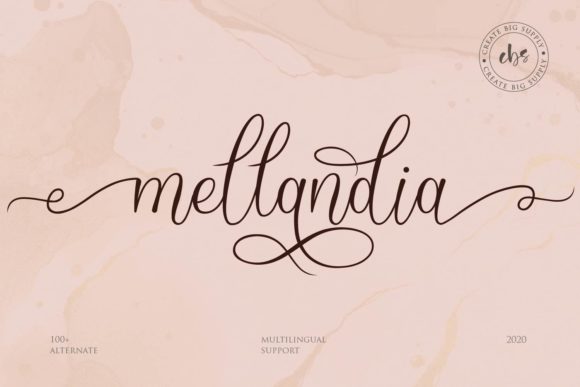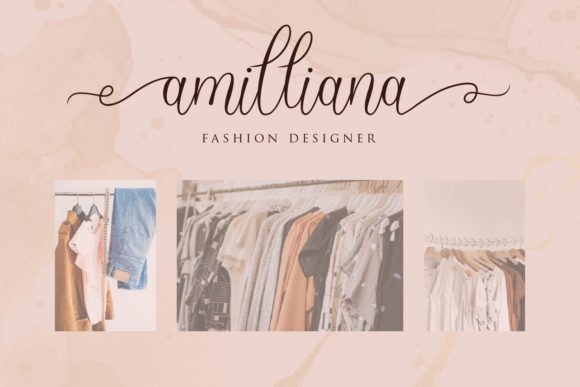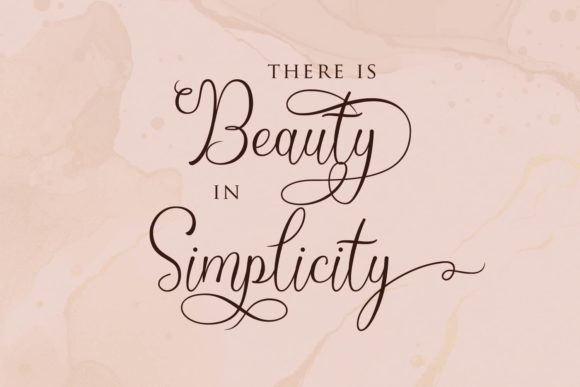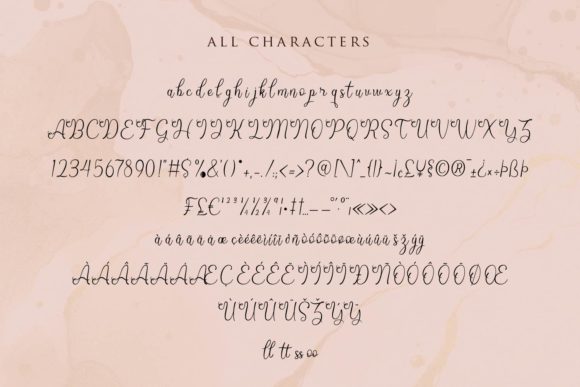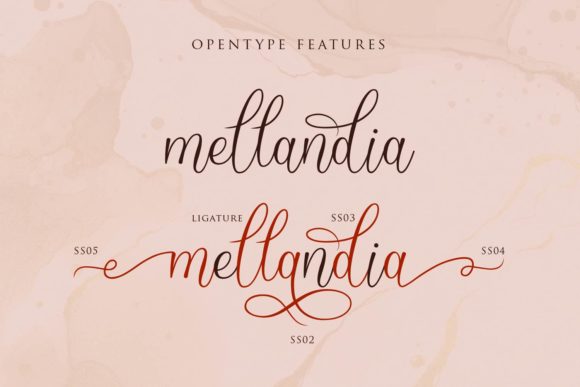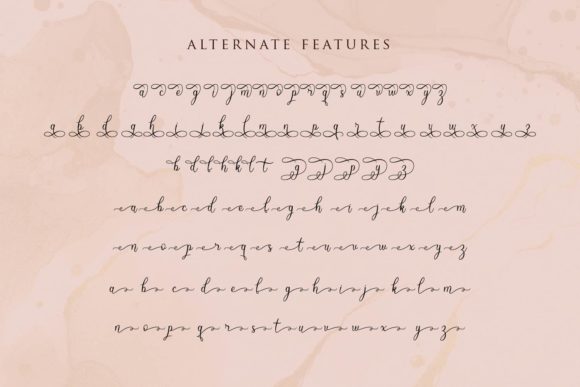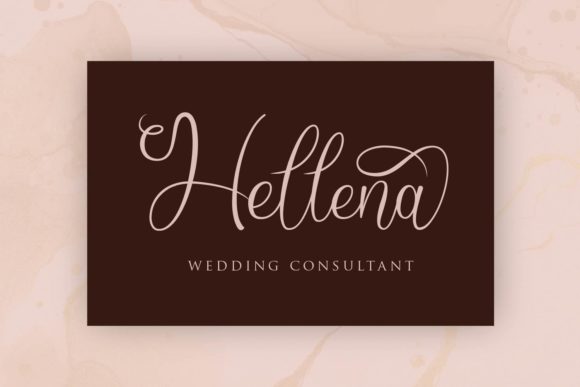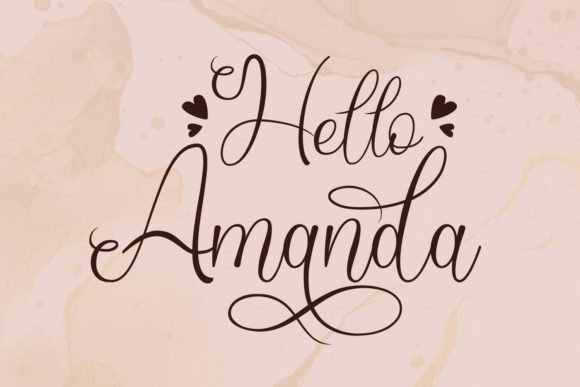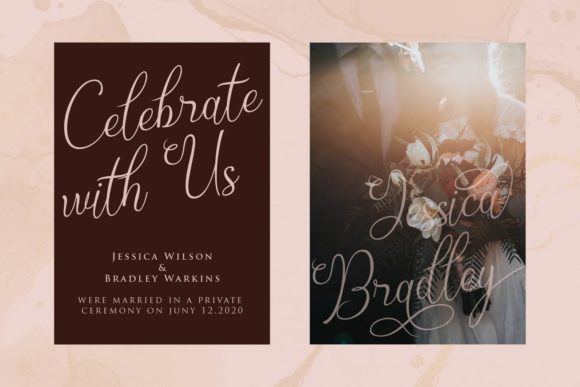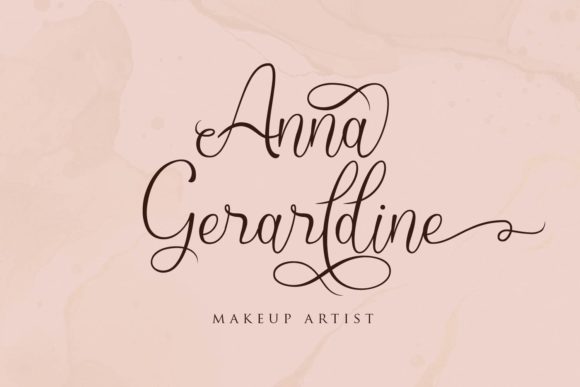
Mellandia Font
About Mellandia Font
Mellandia is a gorgeous script font with beautiful swashes. Get inspired by its unique flow and create lovely greeting cards, cute stationary, outstanding wedding invitations and much more!